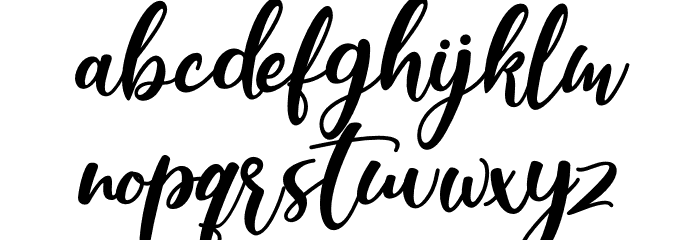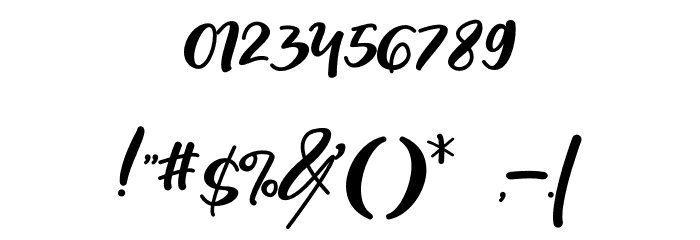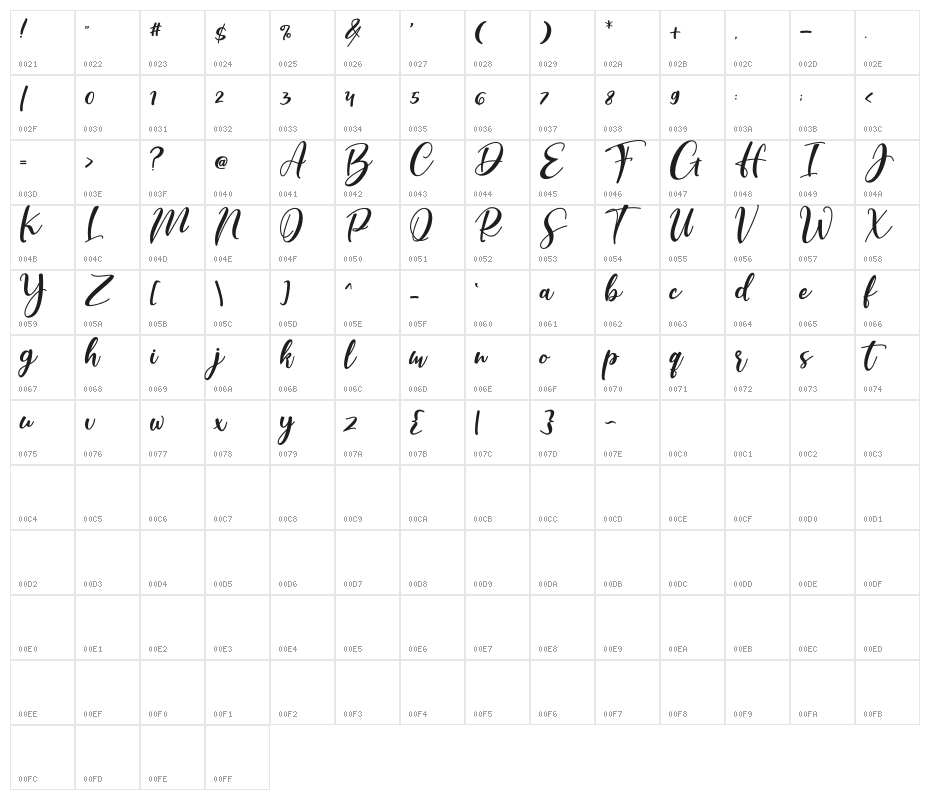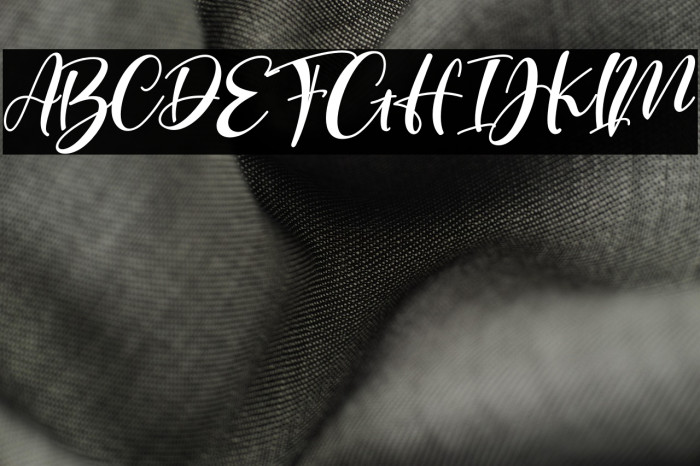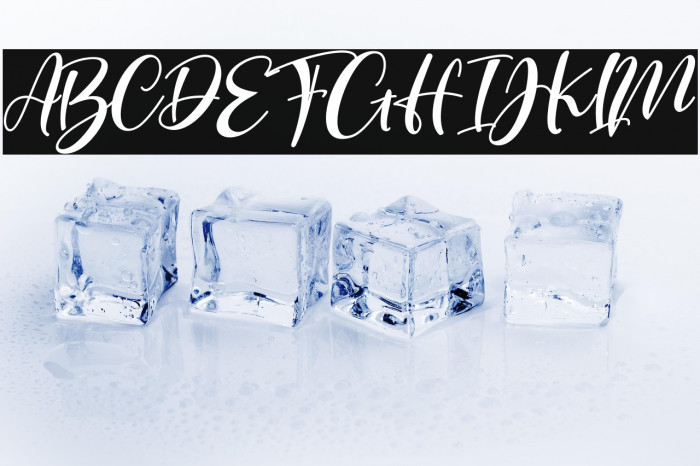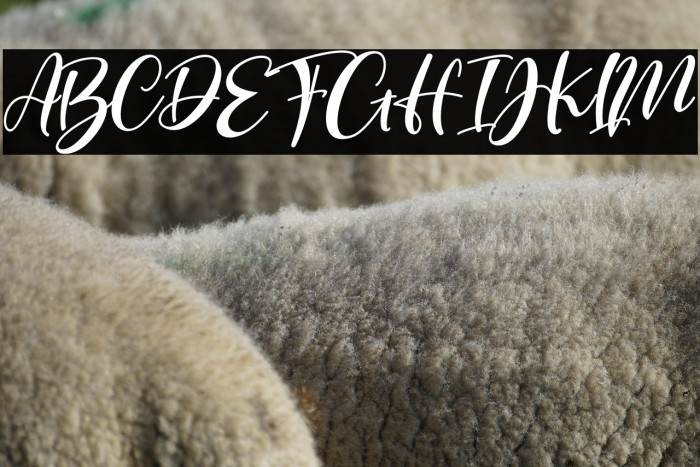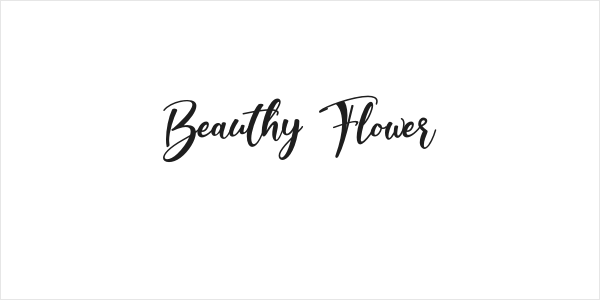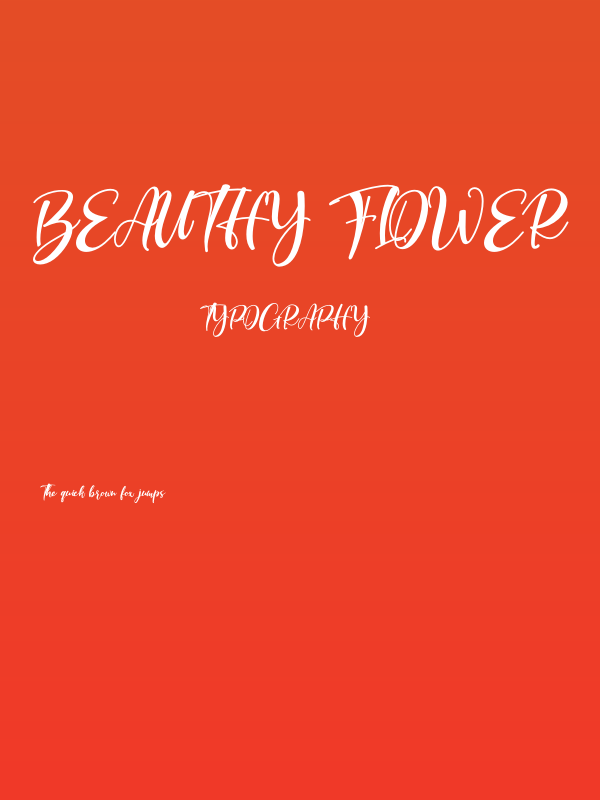
Beauthy Flower Font
This font exudes a lively and elegant script style, characterized by flowing, interconnected letters that mimic the fluidity of handwriting. The uppercase letters are bold and expressive, with a slight slant that adds a dynamic feel. The lowercase letters maintain a consistent rhythm, enhancing readability while preserving the artistic flair. Numerals are clear and harmonize well with the overall aesthetic. Special characters are thoughtfully designed, ensuring they blend seamlessly with the rest of the typeface. The font's playful yet sophisticated nature makes it versatile for various design applications.
A lively and elegant script font with flowing, interconnected letters.
- Font: Beauthy Flower
- Proposed Projects: Ideal for wedding invitations, greeting cards, branding, and logo design.
- Category: Script
- Use Case: Logos, Invitations, Branding